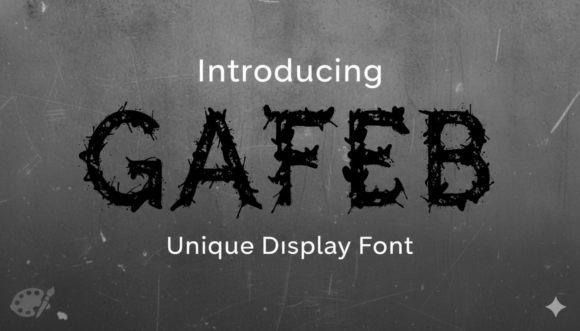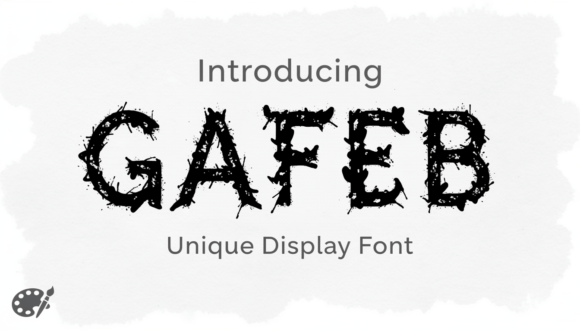
Introducing GAFEB Font: Unleash Your Creativity with this Unique Display Font
In the world of typography, fonts play a crucial role in conveying messages, expressing emotions, and creating a lasting impression. For designers, crafters, and artists, finding the right font can be a daunting task. However, if you’re looking for a font that stands out from the crowd, look no further than GAFEB Font. This distinctive display font is handcrafted to capture attention and add a touch of edgy personality to your projects.
What Makes GAFEB Font Unique?
GAFEB Font boasts a textured, almost splattered appearance that sets it apart from other fonts. Its unique, handcrafted feel gives it a raw, artistic look that’s perfect for headlines, branding, posters, and any project that needs to make a statement. The font’s distinctiveness lies in its irregularities, which add a layer of authenticity and character to your designs.
GAFEB Font is designed to add a touch of artistic flair to your projects. Its edgy personality makes it ideal for:
- Headlines: Add a bold, attention-grabbing touch to your headlines with GAFEB Font.
- Branding: Create a unique brand identity with this distinctive font.
- Posters: Make your posters stand out with GAFEB Font’s textured, splattered appearance.
- Logos: Add a touch of personality to your logos with this handcrafted font.
Why Choose GAFEB Font?
There are many reasons why GAFEB Font stands out from the crowd:
- Unique Design: GAFEB Font’s handcrafted design ensures that your projects will stand out from the crowd.
- Versatility: This font can be used for a wide range of projects, from headlines to posters.
- Easy to Read: Despite its textured appearance, GAFEB Font is easy to read, making it perfect for display text.
- High-Quality: GAFEB Font is a high-quality font that’s designed to deliver exceptional results.
Tips for Using GAFEB Font
To get the most out of GAFEB Font, here are some tips to keep in mind:
- Use it for Display Text: GAFEB Font is perfect for display text, such as headlines, titles, and captions.
- Experiment with Colors: Try pairing GAFEB Font with different colors to create a unique look.
- Mix and Match: Combine GAFEB Font with other fonts to create a distinctive look.
- Pay Attention to Size: GAFEB Font looks best at larger sizes, so use it for headlines and titles.
| Font Name | Gafeb Font |
| Author | pavel |
GAFEB Font is a unique and expressive display font that’s perfect for designers, crafters, and artists looking to add a touch of edgy personality to their projects. Its textured, almost splattered appearance makes it stand out from the crowd, while its handcrafted feel adds a layer of authenticity and character. Whether you’re working on a headline, branding project, poster, or logo, GAFEB Font is the perfect choice.